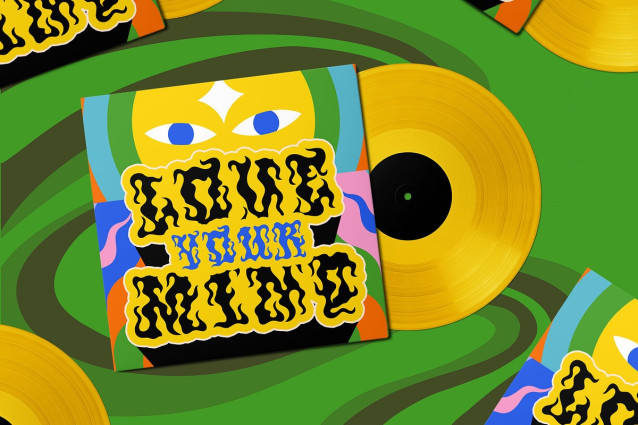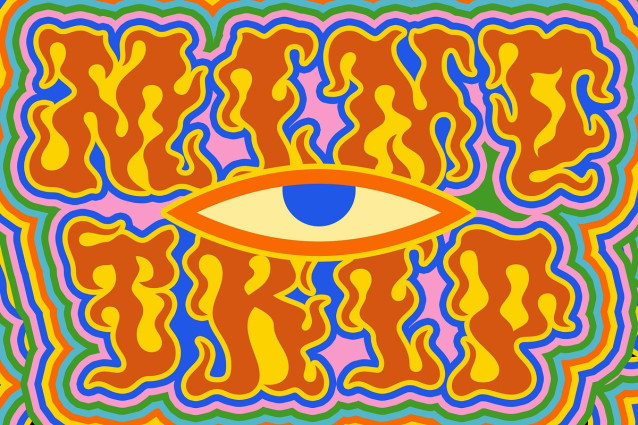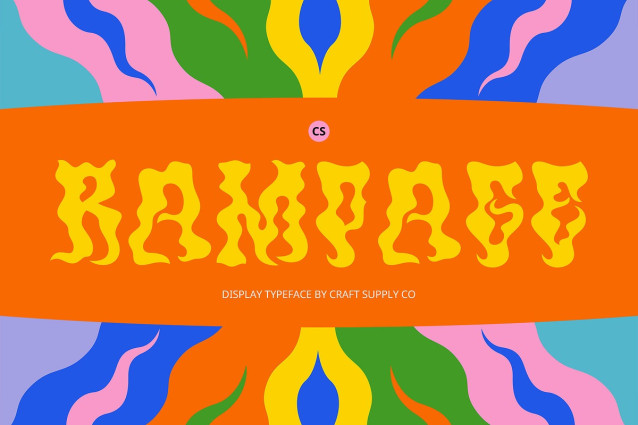
CS Rampage Font
CS Rampage Font is a modern display font infused with a psychedelic spirit, featuring unconventional curves, twisted forms, and dynamic compositions. Its bold, eye-catching shapes immediately radiate a sense of movement, freedom, and visual rhythm, capturing the essence of retro-inspired rebellion and modern artistic flair.
Funky Vibes with Wild Personality Every letterform in CS Rampage is designed to feel alive, expressive, and offbeat, delivering a funky and surreal atmosphere that feels both nostalgic and cutting-edge. The exaggerated contours and fluid lines break away from traditional structure, making it a perfect choice for designs that dare to be different.
Perfect for Music, Art, and Bold Statements Whether you’re designing psychedelic music posters, bold album covers, avant-garde branding, or art-driven campaigns, CS Rampage brings an energy that demands attention and celebrates creativity. It’s ideal for any project that thrives on imagination, individuality, and visual experimentation.
A Celebration of Creative Chaos CS Rampage isn’t just a font—it’s a statement piece. It’s designed for those who want to push visual boundaries and inject their designs with a sense of eccentricity and expressive freedom. Use it when you want your typography to not only speak—but to shout, swirl, and dance.